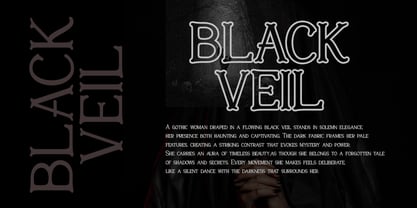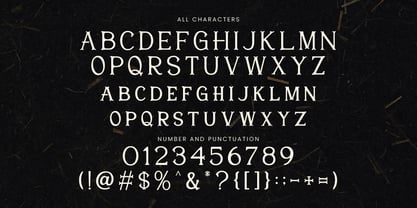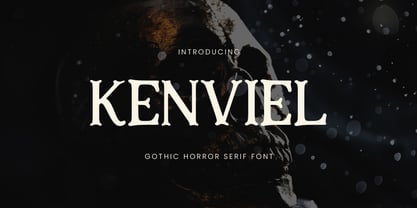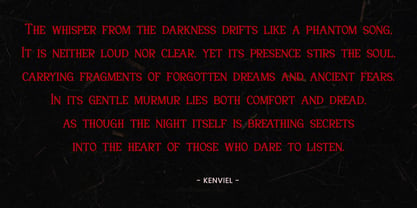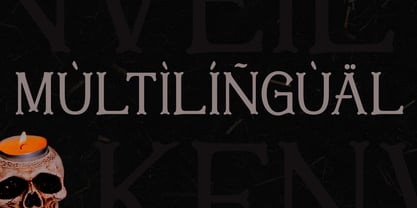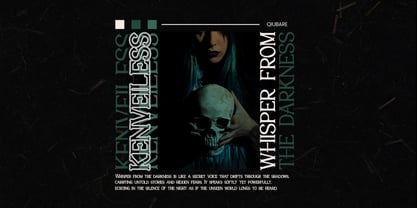
Kenviel
Kenviel is a dark gothic serif font crafted to bring mystery, elegance, and haunting beauty into your creative projects. Inspired by vintage horror aesthetics, medieval typography, and cinematic darkness, Kenviel features sharp serif details, dramatic curves, and an eerie yet refined personality.
Perfectly designed for creators who want to build a strong atmospheric visual, Kenviel works beautifully across gothic branding, horror movie posters, fantasy book covers, dark editorial layouts, luxury packaging, album artwork, apparel, Halloween visuals, and cinematic typography.
Its elegant letterforms combine classic gothic charm with modern readability, making it ideal for both large dramatic headlines and artistic compositions.
Whether you're designing a dark fantasy brand, horror-themed content, mysterious logos, gothic wedding invitations, occult-inspired posters, or premium editorial layouts, Kenviel delivers a timeless and captivating visual presence.
✓ Uppercase & Lowercase
✓ Numerals & Punctuation
✓ Multilingual Support
✓ Carefully Crafted Kerning
✓ Stylish Gothic Character Style
Perfect For:
* Horror Posters
* Gothic Branding
* Fantasy Titles
* Dark Editorial Design
* Book Covers
* Luxury Packaging
* Album Artwork
* Movie Titles
* Apparel Design
* Halloween Projects
* Social Media Graphics
* Vintage & Mystical Themes
Kenviel — where darkness meets elegance.